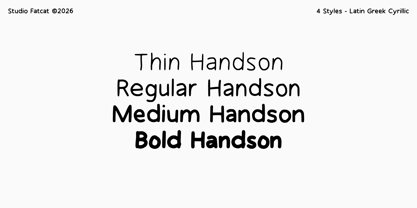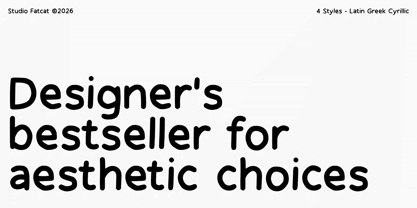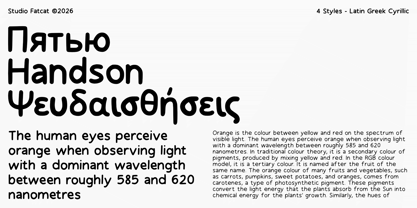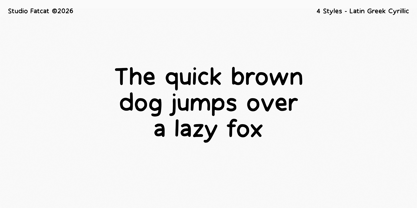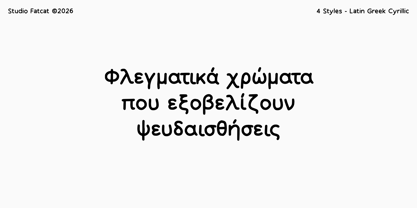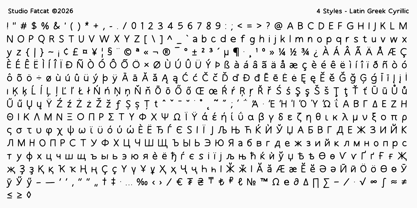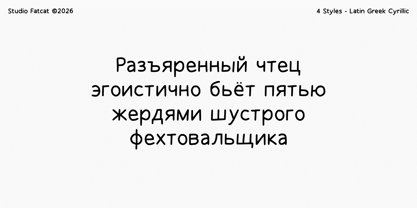
Handson
by Studio Fat Cat
The Handson Font Family was designed by Atok Khoirudin and published by Studio Fat Cat. Handson contains 4 styles and family package options. More about this family
Handson is a warm and natural handwritten typeface designed to bring a personal touch to your designs. Its organic strokes and relaxed character make it feel authentic and approachable, perfect for projects that need a human feel rather than something overly polished or mechanical. Whether you’re creating branding, quotes, invitations, or social media graphics, Handson adds personality without sacrificing readability. With four versatile styles—Thin, Regular, Medium, and Bold—you have the flexibility to build clear typographic hierarchy across your layouts. From delicate body text to strong, eye-catching headlines, This handwritten font adapts beautifully to both text and display use. It also supports three scripts—Latin, Greek, and Cyrillic—making it ideal for multilingual projects and global audiences. Handson works especially well for branding, packaging, editorial design, posters, and digital content. Its balanced mix of charm and functionality allows you to use this handwritten font across a wide range of creative applications, giving your work a consistent, friendly, and professional look.
Designers: Atok Khoirudin
Foundry: Studio Fat Cat